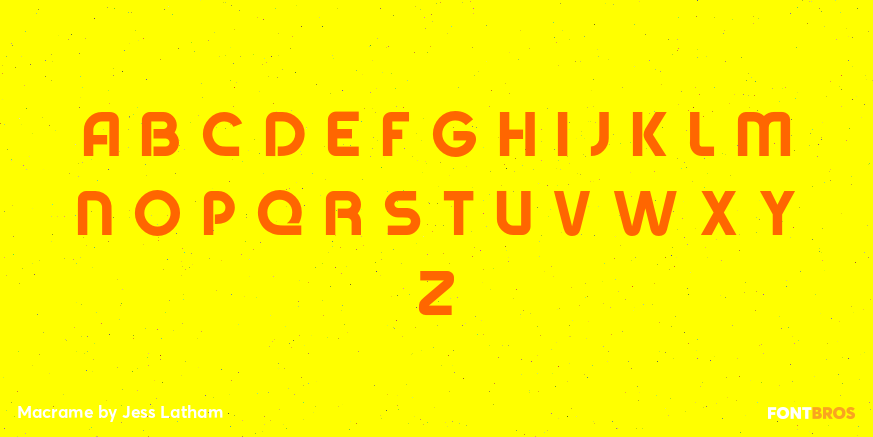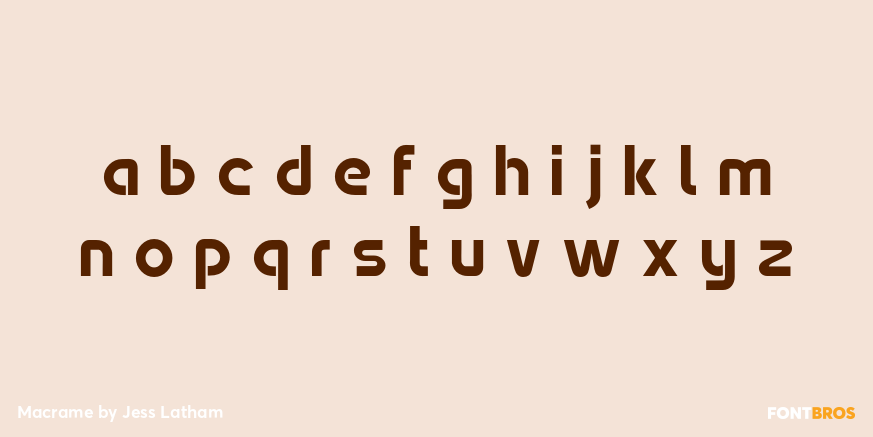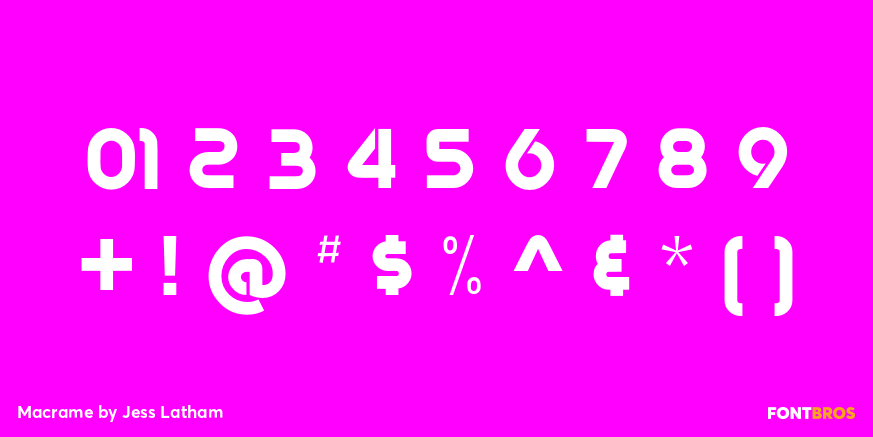
Macrame
Font Family by Jess Latham
Macrame has three line styles for added versatility: One, Two and Three! Inspired by the font styles popular in the late 70s and early 80s. Think macrame wall hangings, bean bag chairs, sprout gardens, table tennis, tough skin jeans, roller skates, green carpet, bubble gum lip-gloss, wooden sandals, the pina colada song and fun, fun, fun!